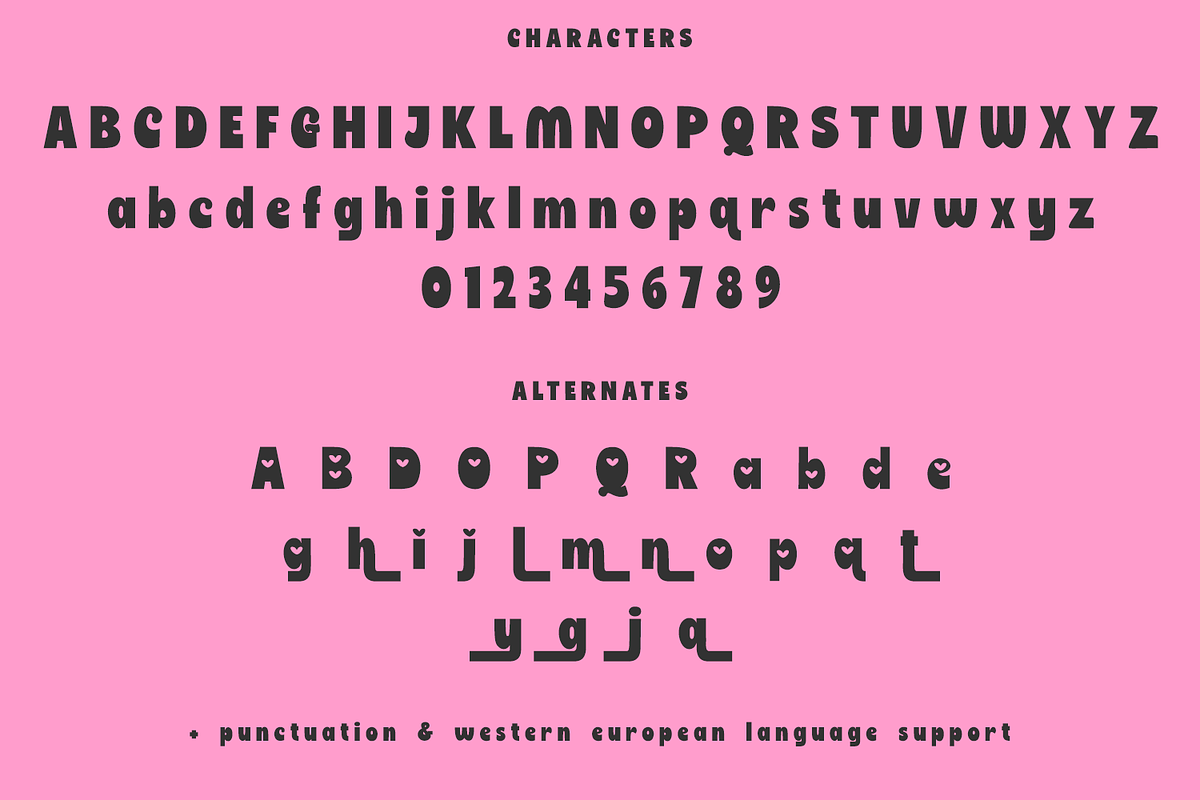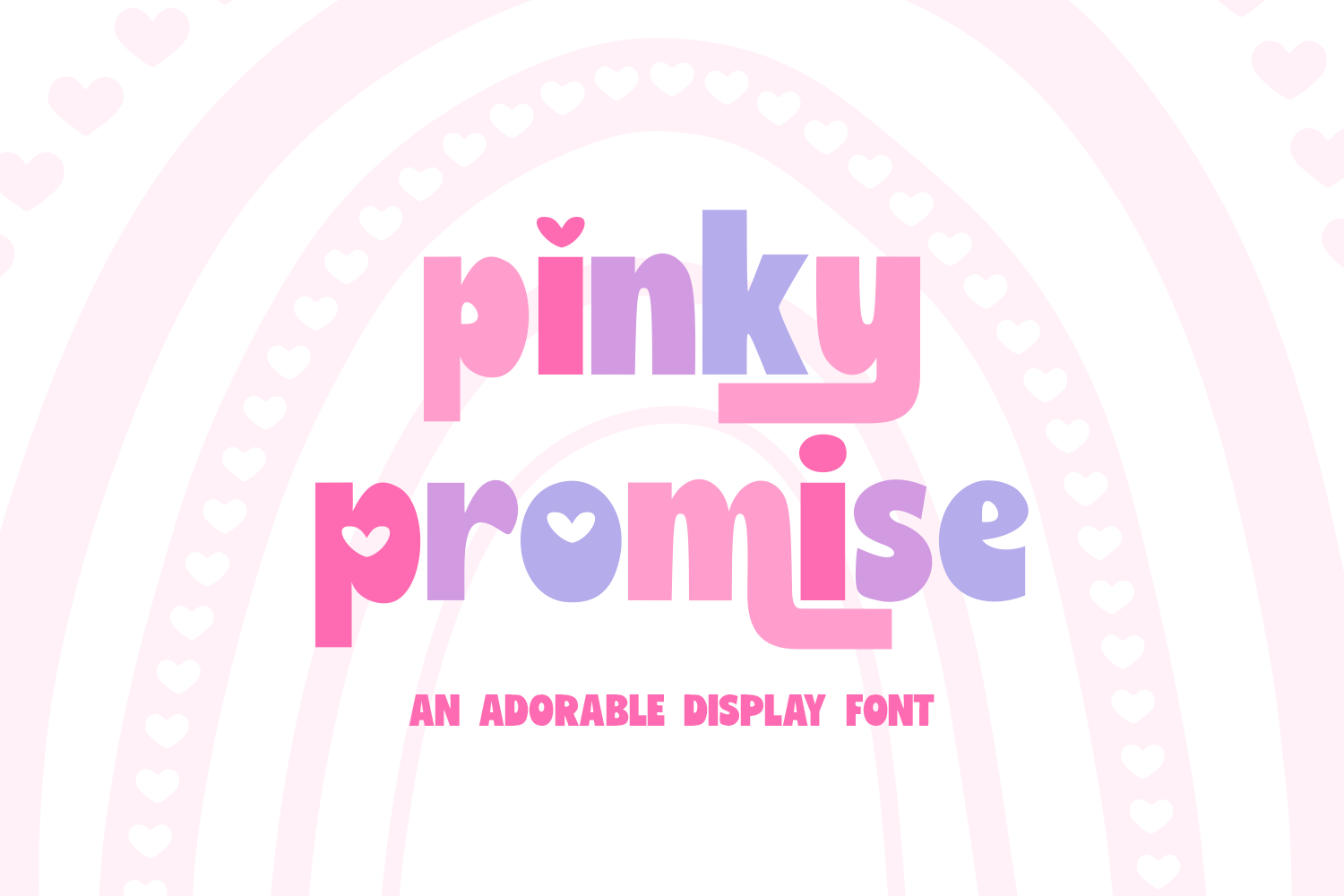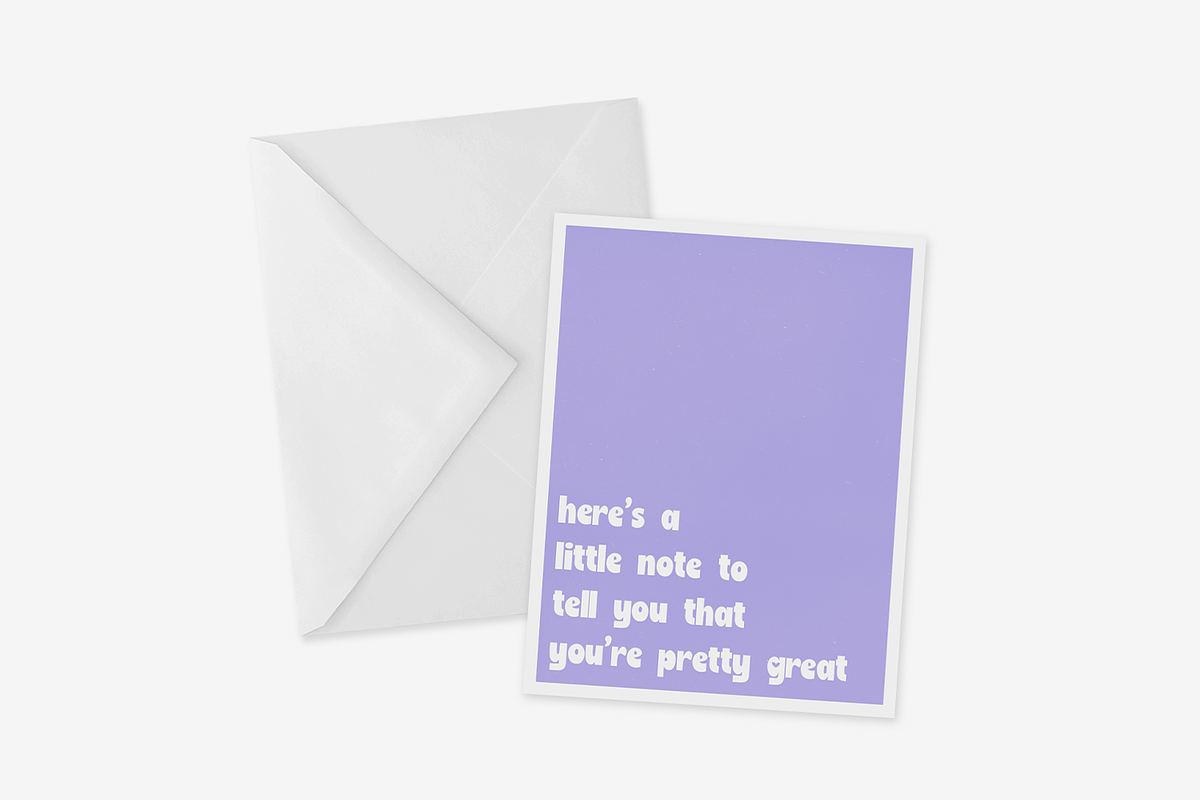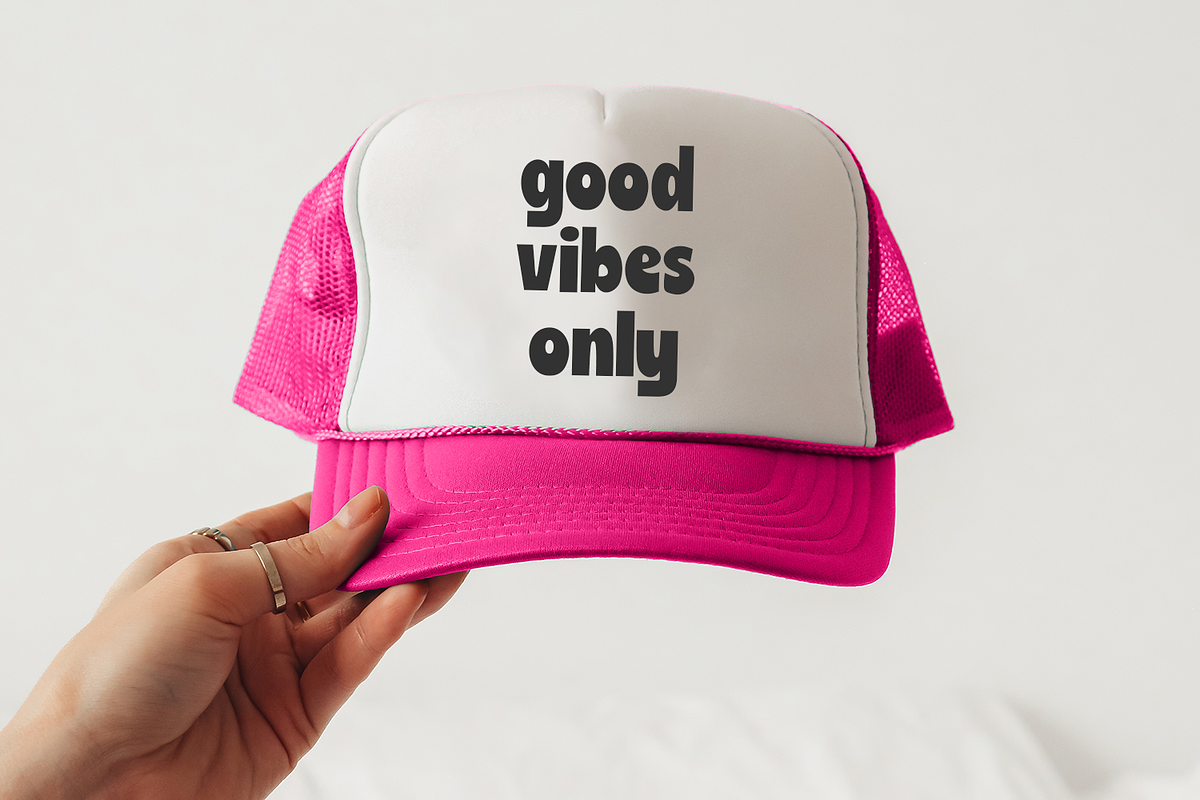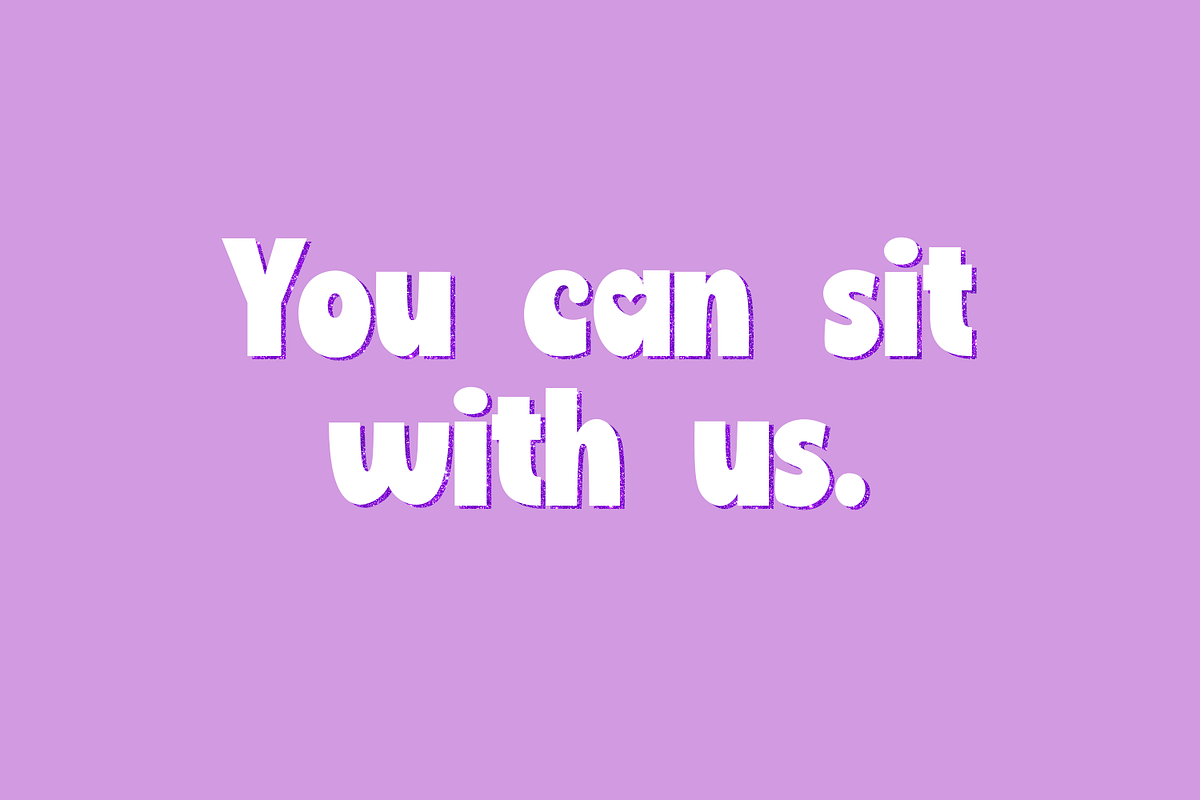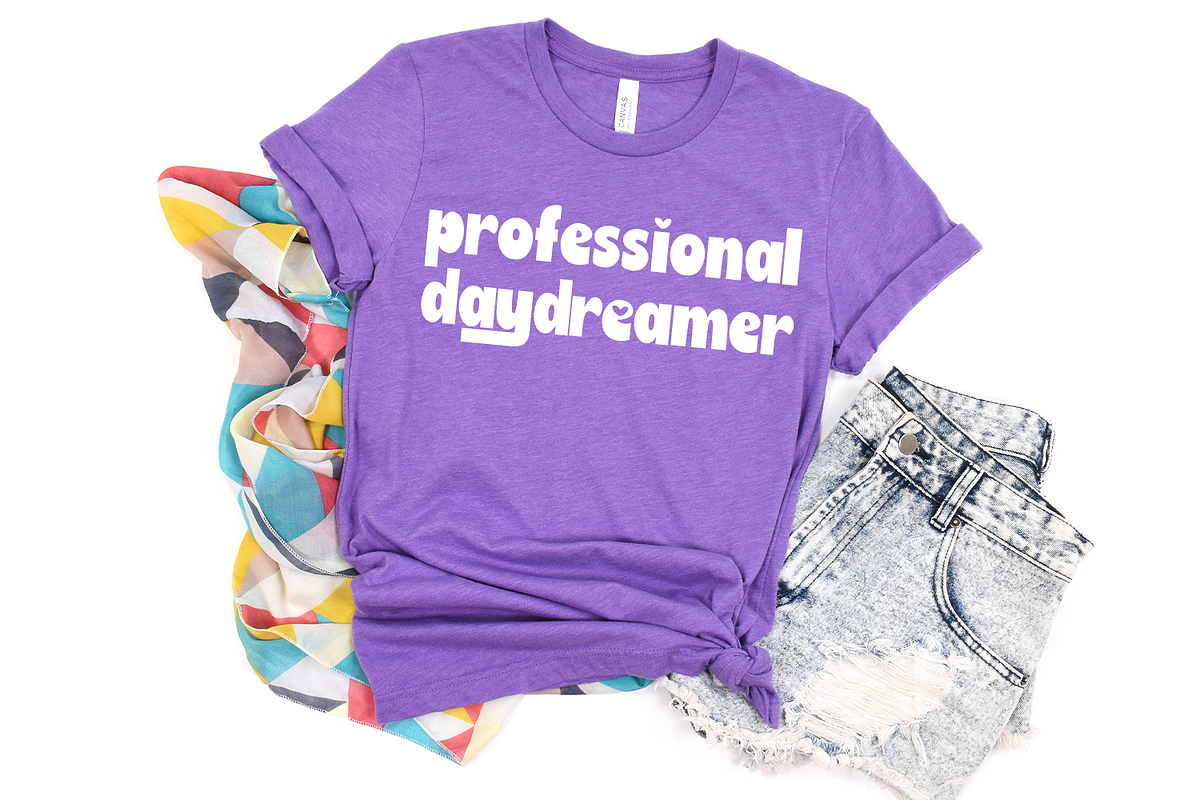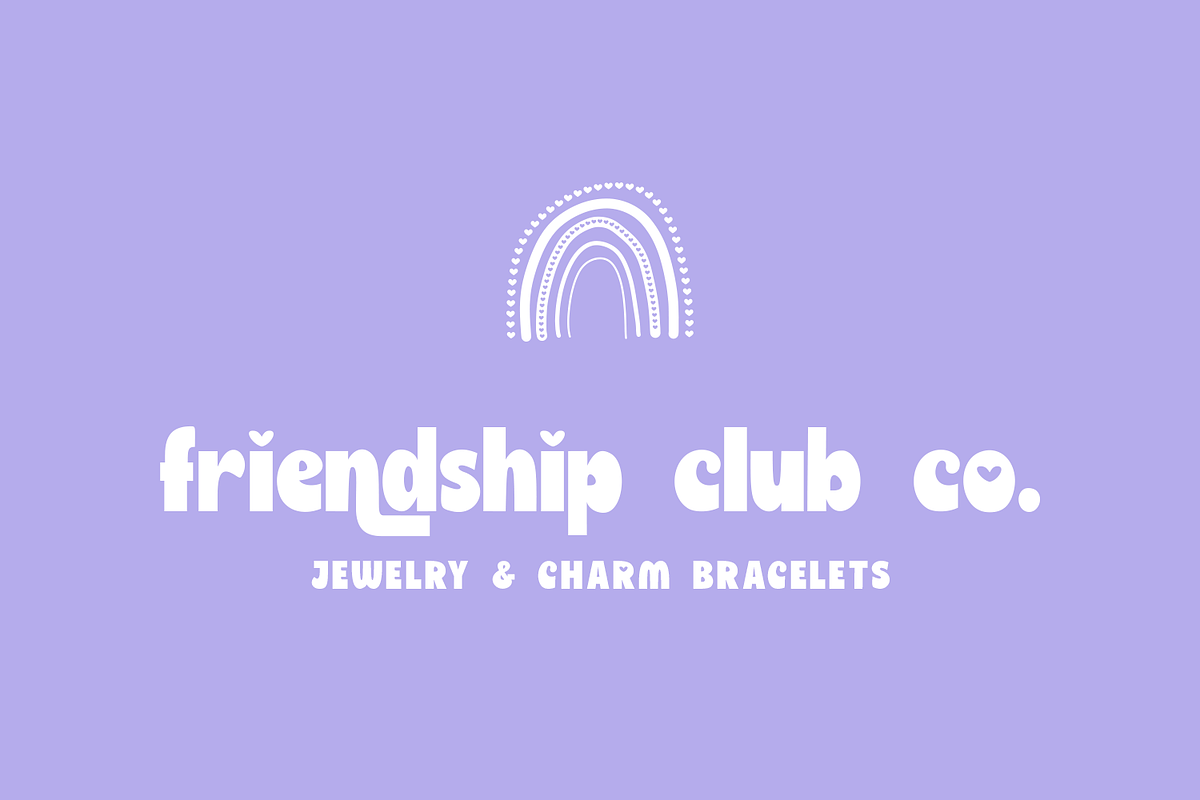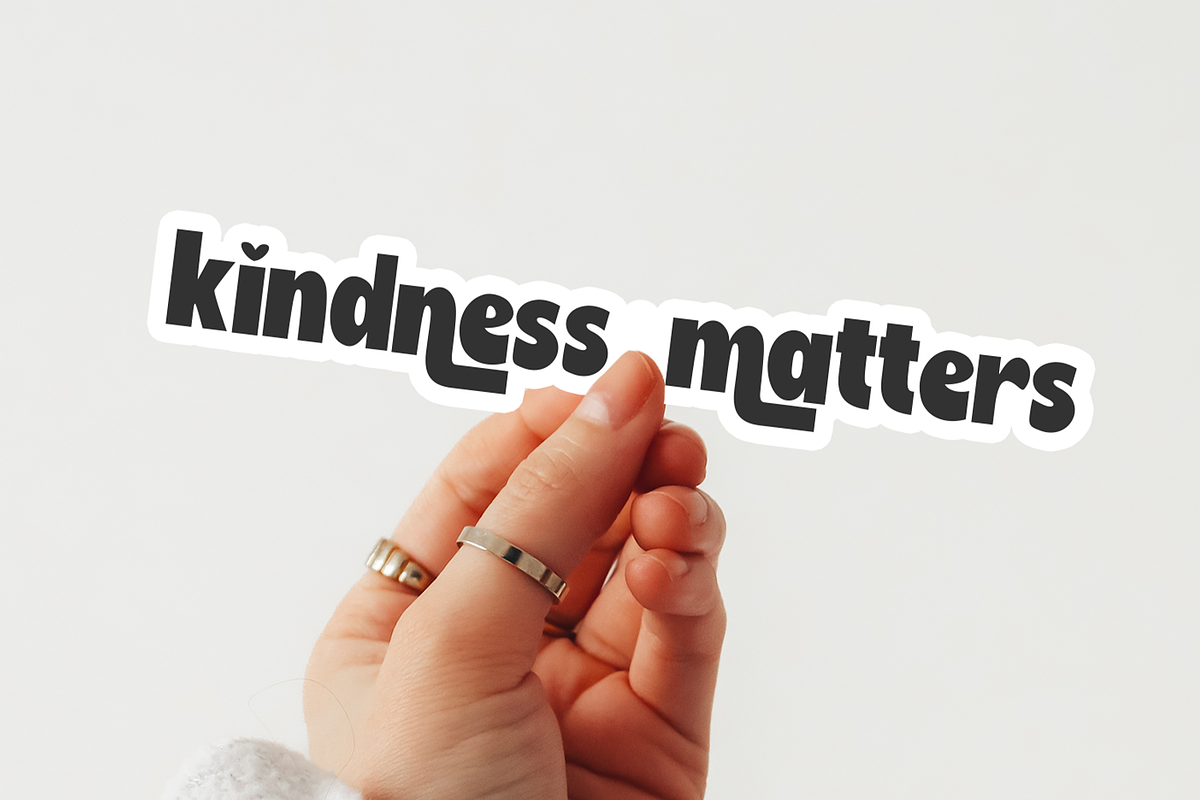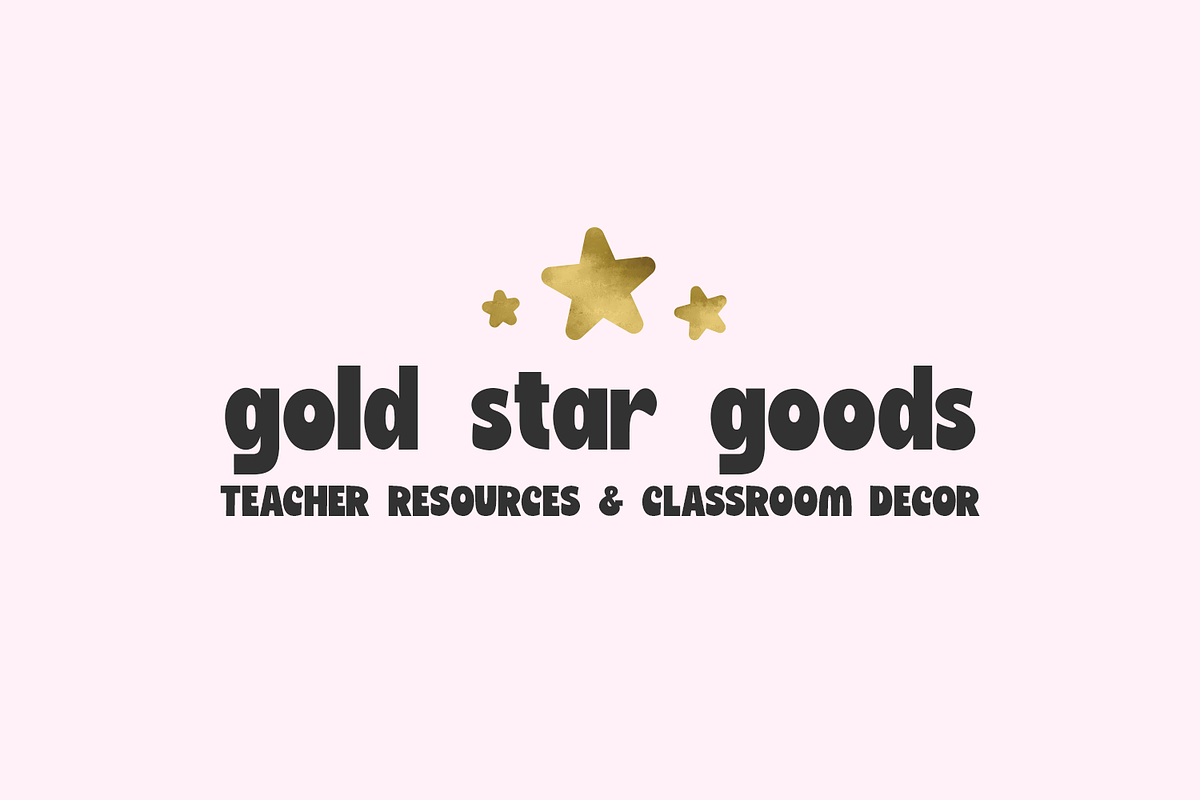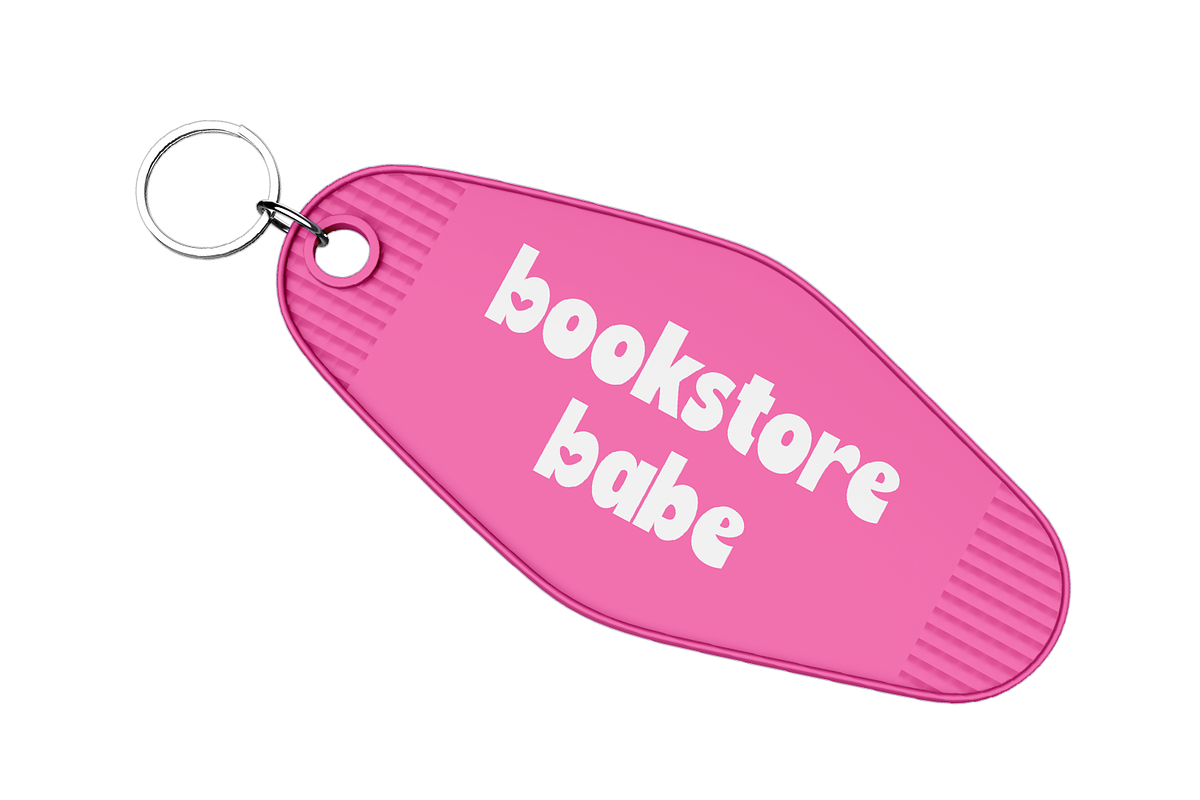
Pinky Promise Sans Font
Say hello to Pinky Promise, a playful display font with a charming modern-retro personality! This bold sans serif font blends a touch of nostalgia with a fun, whimsical style, making it a perfect choice for classroom decor, craft projects, and creative branding. While Pinky Promise has a sweet side thanks to its heart details sprinkled throughout select letters, it remains versatile enough for a wide variety of design applications.
Use Pinky Promise to create eye-catching logos, boutique branding, product packaging, greeting cards, stickers, t-shirts, social media graphics, website headlines, and more. Its easy-to-read letterforms make it just as effective for print projects like flyers, magazines, and marketing materials as it is for digital designs. Pinky Promise brings a cheerful retro vibe to Cricut projects, classroom decor, and more.
Pinky Promise includes:
- full upper + lowercase characters
- numbers + punctuation
- 26 alternate characters - A, B, D, O, P, Q, R, a, b, d, e, g x2, h, i, j x2, l, m, n, o, p, q x2, t, y
- Western European language support - English, French, Spanish, Portuguese (Brazil), Portuguese (Portugal), Italian, German (Germany), German (Austria), Dutch, Danish, Swedish, Norwegian (Bokmål and Nynorsk), Finnish, Icelandic, Irish, Welsh